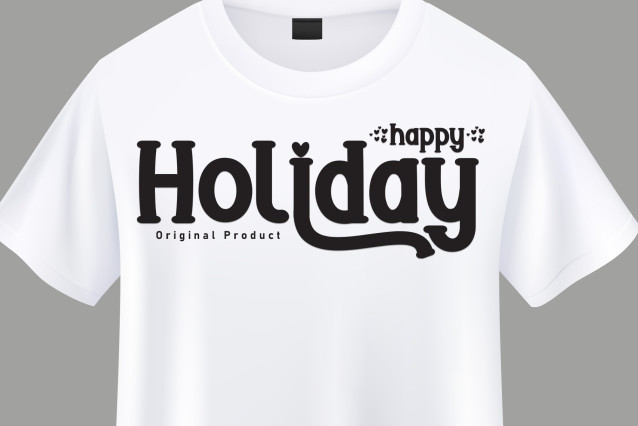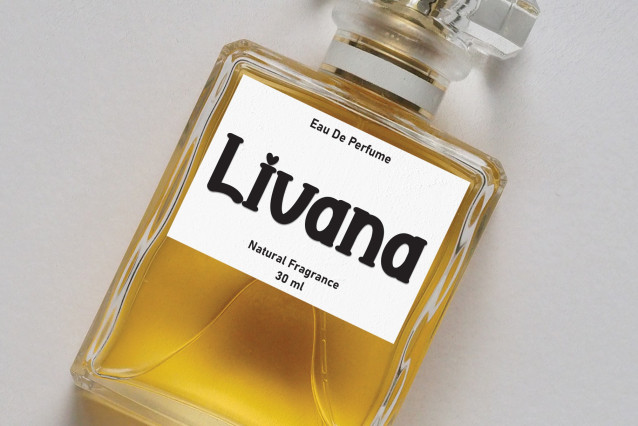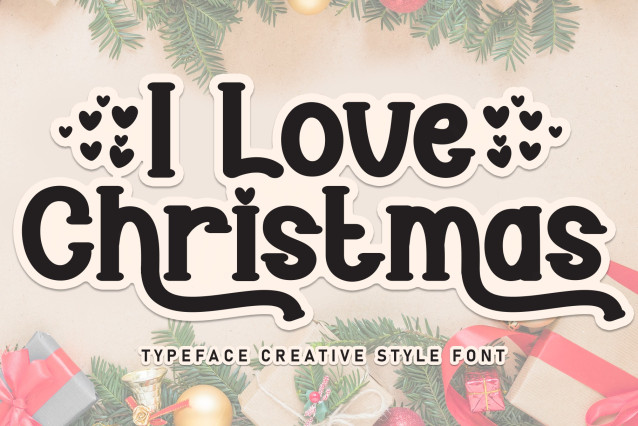
I Love Christmas Font
I Love Christmas Font a charmingly delightful, handwritten display font – a touch of whimsy encapsulated in typography! Brimming with a sweet, friendly allure, this font finds its perfect application in penning wedding invitations, crafting beautiful cards or adding that extra sprinkling of joy to any design in need of an entertaining twist. This playful font enhances every creation with its unique touch, turning ordinary projects into masterpieces of fun. Lean into your creativity and adorn your design work with this cutesy and captivating handwritten font.